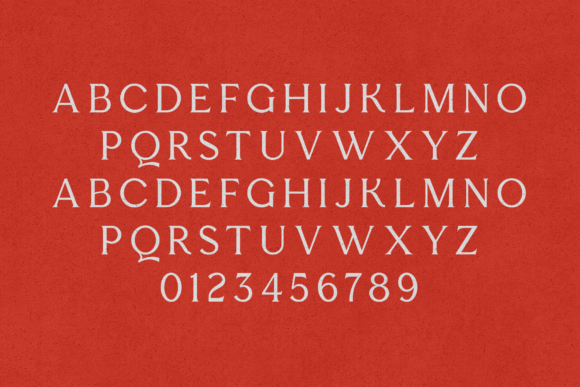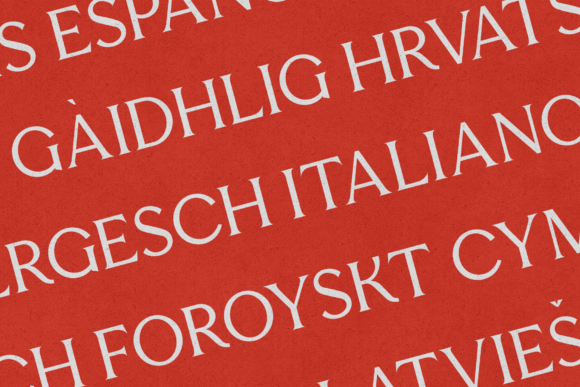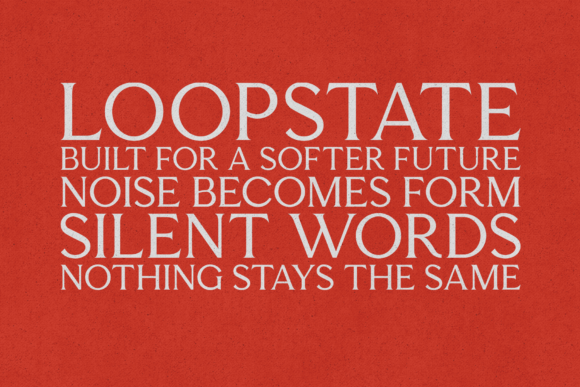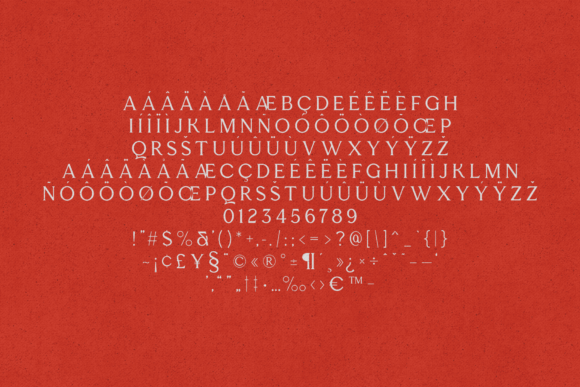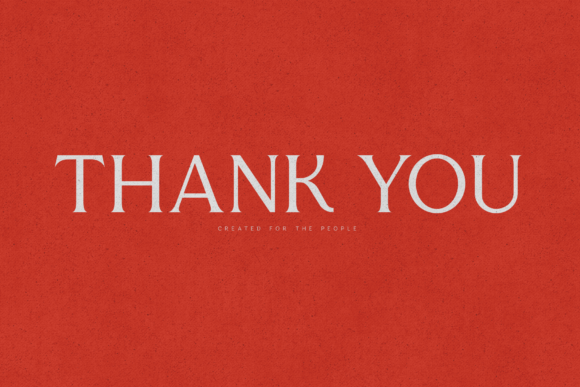
Introducing Esque Font: The Epitome of Elegance and Modernity
In the realm of typography, few fonts manage to strike a balance between classic sophistication and modern minimalism. Esque Font, however, achieves this delicate equilibrium with remarkable finesse. This refined semi-serif typeface is a masterful blend of traditional elegance and contemporary design principles, making it an invaluable asset for designers and crafters seeking to elevate their visual creations.
The Design Philosophy Behind Esque
Esque’s design is rooted in the pursuit of creating a typographic voice that exudes sophistication while maintaining a clean and contemporary structure. The font’s creator carefully crafted Esque with graceful proportions and subtle serif details, ensuring that it would deliver a refined aesthetic suitable for a wide range of design applications. The delicate contrast between soft curves and sharp serif accents is a defining feature of Esque, creating a balanced and expressive character that feels both timeless and modern.
Key Characteristics of Esque Font
- Semi-Serif Construction: Esque’s semi-serif design makes it incredibly versatile, suitable for various design projects, from editorial layouts and branding to luxury packaging and modern visual identities.
- Classical Elegance: The font’s classical roots are evident in its refined proportions and elegant lines, which evoke a sense of tradition and sophistication.
- Modern Minimalism: Esque’s clean and minimalist structure ensures that it remains contemporary and relevant, even in today’s fast-paced design landscape.
- Subtle Serif Details: The subtle serif details add a touch of sophistication and refinement to the font, making it ideal for designs that require a high level of elegance.
Applications of Esque Font
Esque’s versatility makes it an excellent choice for a wide range of design applications. Some of the areas where Esque truly shines include:
- Editorial Layouts: Esque’s refined and elegant design makes it perfect for use in magazines, newspapers, and books, where a sophisticated typographic voice is essential.
- Branding: The font’s unique blend of classic and modern elements makes it an excellent choice for brands seeking to establish a strong and sophisticated visual identity.
- Luxury Packaging: Esque’s elegant design and refined proportions make it ideal for use in luxury packaging, where a high level of sophistication and refinement is required.
- Modern Visual Identities: The font’s clean and minimalist structure ensures that it remains contemporary and relevant, making it suitable for modern visual identities that require a fresh and innovative approach.
Why Choose Esque Font?
With so many fonts available, why should designers and crafters choose Esque? The answer lies in the font’s unique combination of elegance, sophistication, and versatility. Esque offers:
- Timeless Appeal: Esque’s classic roots ensure that it remains timeless and relevant, even as design trends evolve.
- Flexibility: The font’s semi-serif construction and clean structure make it suitable for a wide range of design applications.
- Expressive Character: Esque’s delicate contrast between soft curves and sharp serif accents creates a balanced and expressive character that adds depth and personality to any design.
Esque Font is a masterpiece of modern typography, blending classical elegance with modern minimalism to create a refined semi-serif typeface. Its versatility, sophistication, and timeless appeal make it an invaluable asset for designers and crafters seeking to elevate their visual creations. Whether you’re working on editorial layouts, branding, luxury packaging, or modern visual identities, Esque is sure to deliver a sophisticated typographic voice that sets your design apart.